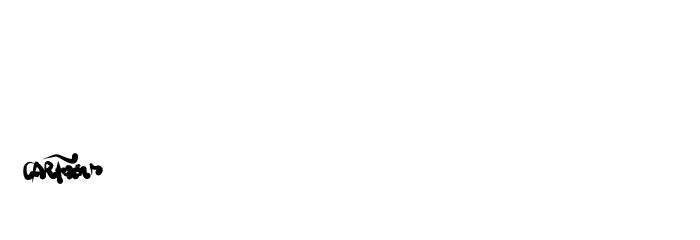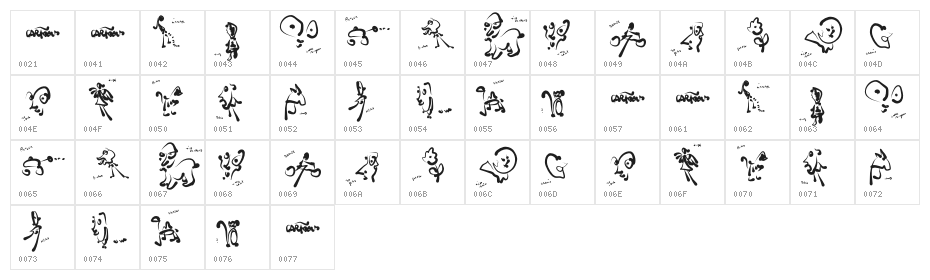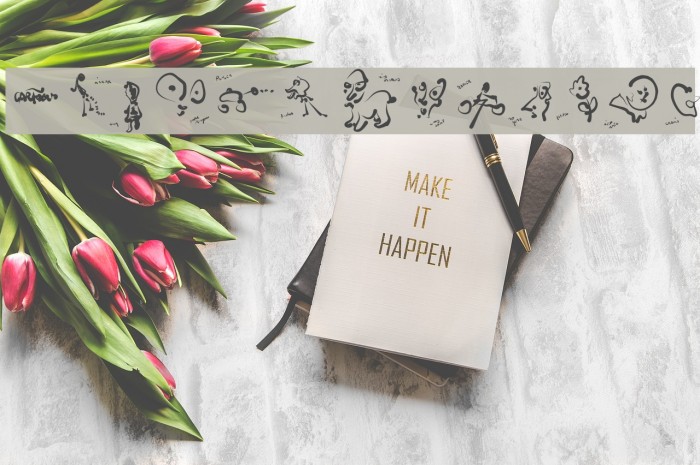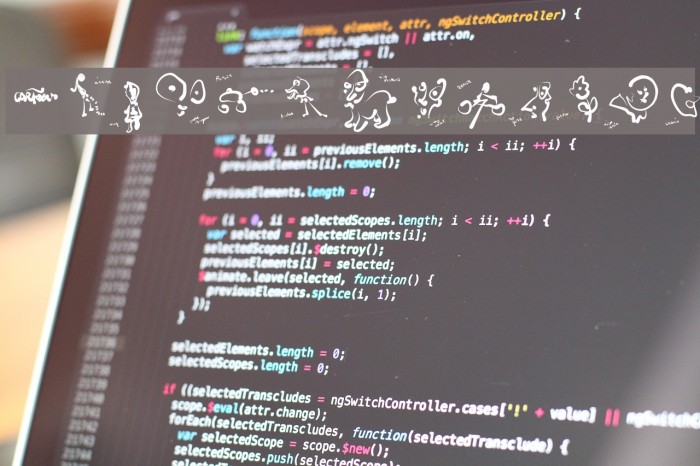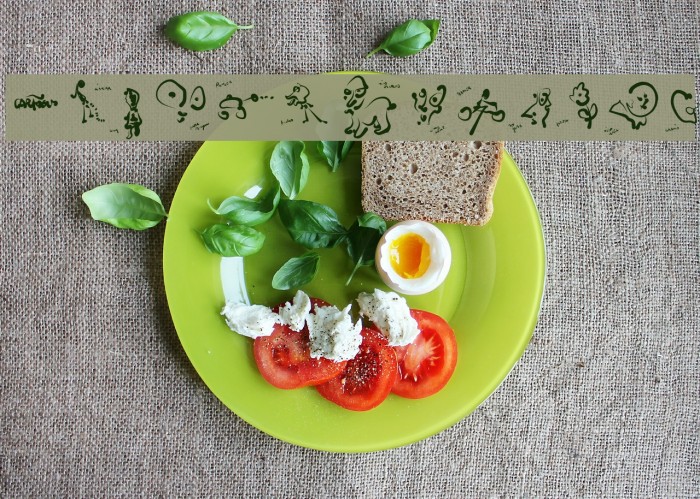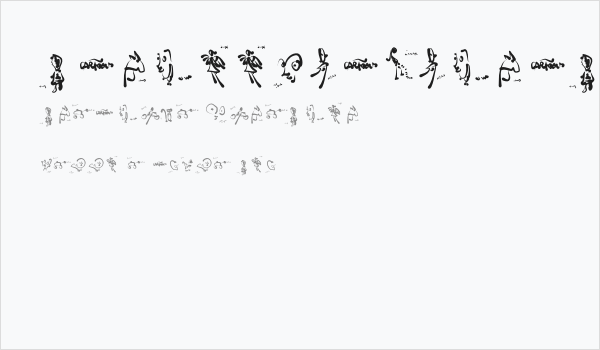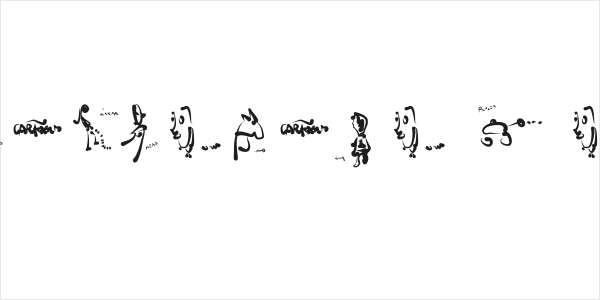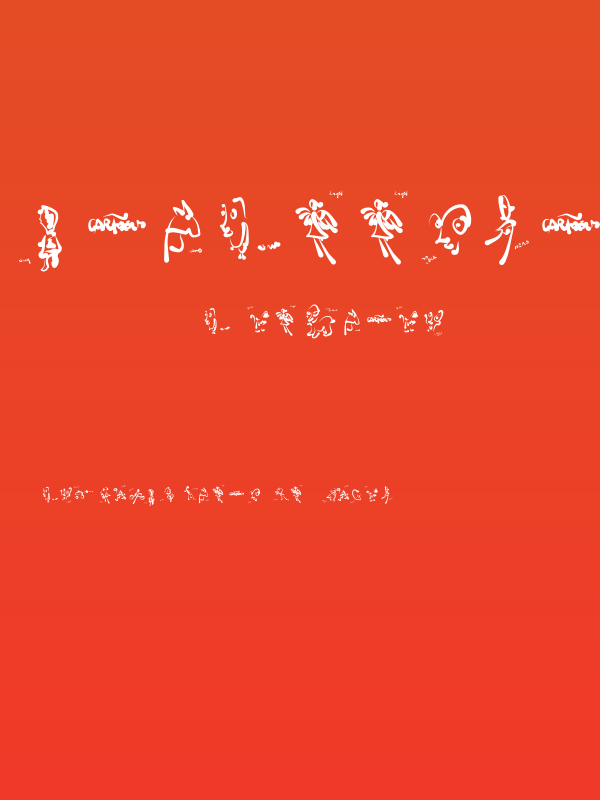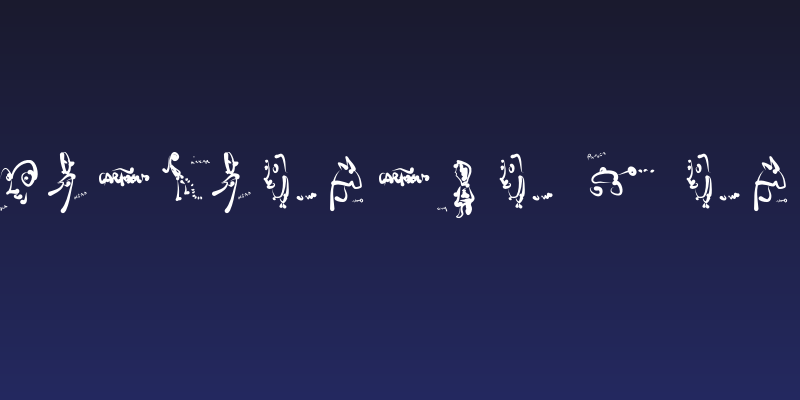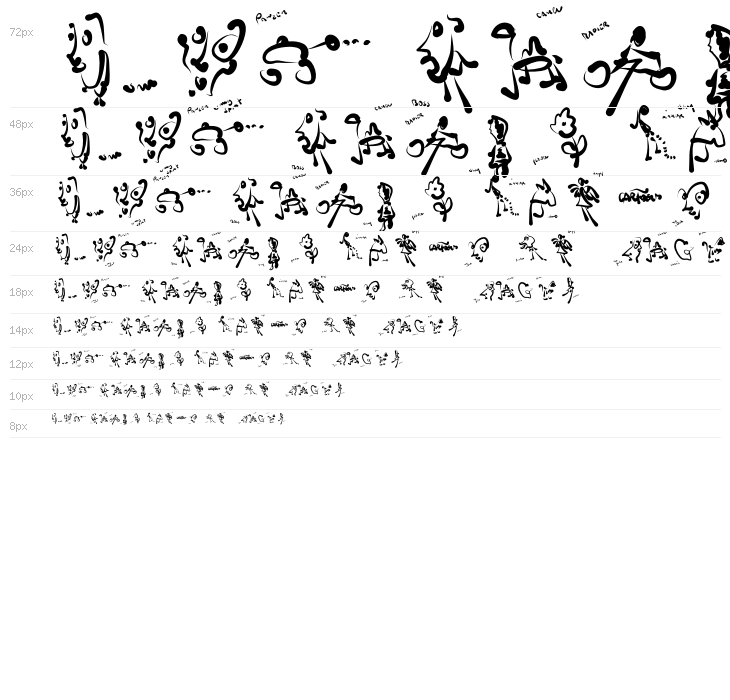
CartoonsAbstract-ExtraBlack Font
CartoonsAbstract-ExtraBlack Description
This font is a playful and abstract representation of characters, where each letter is depicted as a unique cartoon-like figure. The design is highly creative, with each character taking on a whimsical form that resembles a doodle or sketch. The strokes are bold and expressive, giving the font a lively and dynamic appearance. The characters are not uniform, with varying shapes and sizes that add to the overall charm and artistic flair. This font is not meant for traditional text but rather for artistic and decorative purposes, capturing attention with its imaginative style.
| Use Case | Logos, Posters, Artistic projects |
| Proposed Projects | Ideal for children's book illustrations, playful branding, creative posters, and artistic projects that require a unique and eye-catching typeface. |